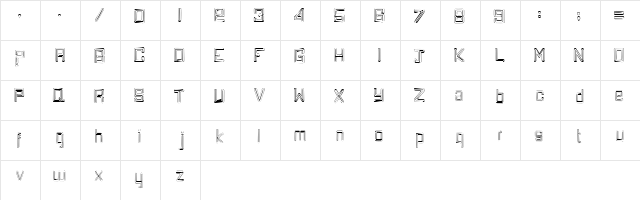
Inline Regular
Design Context for Inline Typeface
Inline brings ornamental detail and strong personality to headlines and identities, where visual impact matters more than quiet functionality.
Font Pairing: Pair with a clean neutral sans-serif for body copy to let Inline's character lead without overwhelming the composition.
Pro Tip: Use Inline exclusively at display sizes — it was designed to be seen, not read at length. Let a neutral companion handle body copy.